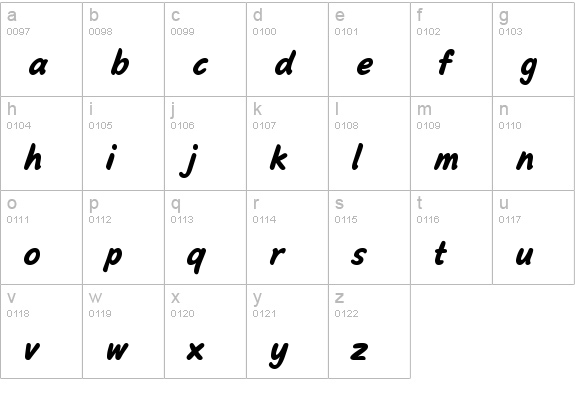
AsdaScript-Regular is the standard, neutral variant in the AsdaScript typeface family \xE2\x80\x94 well suited to general body text, paragraphs, and standard typographic work.
AsdaScript-Regular is a beautiful and elegant font that exudes sophistication and charm. With its flowing lines and graceful curves, this font is perfect for adding a touch of refinement to any design project. Whether you're creating invitations, logos, or branding materials, AsdaScript-Regular will elevate your work to the next level. One of the best things about AsdaScript-Regular is that it is completely free to use. You can download this stunning font at FontsMarket.com without any cost, making it accessible to everyone who wants to add a touch of elegance to their creations. Say goodbye to expensive fonts and hello to AsdaScript-Regular, your new go-to font for all your design needs.